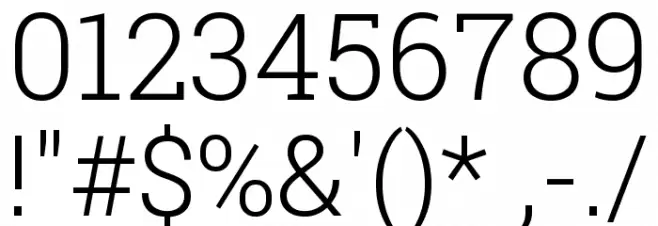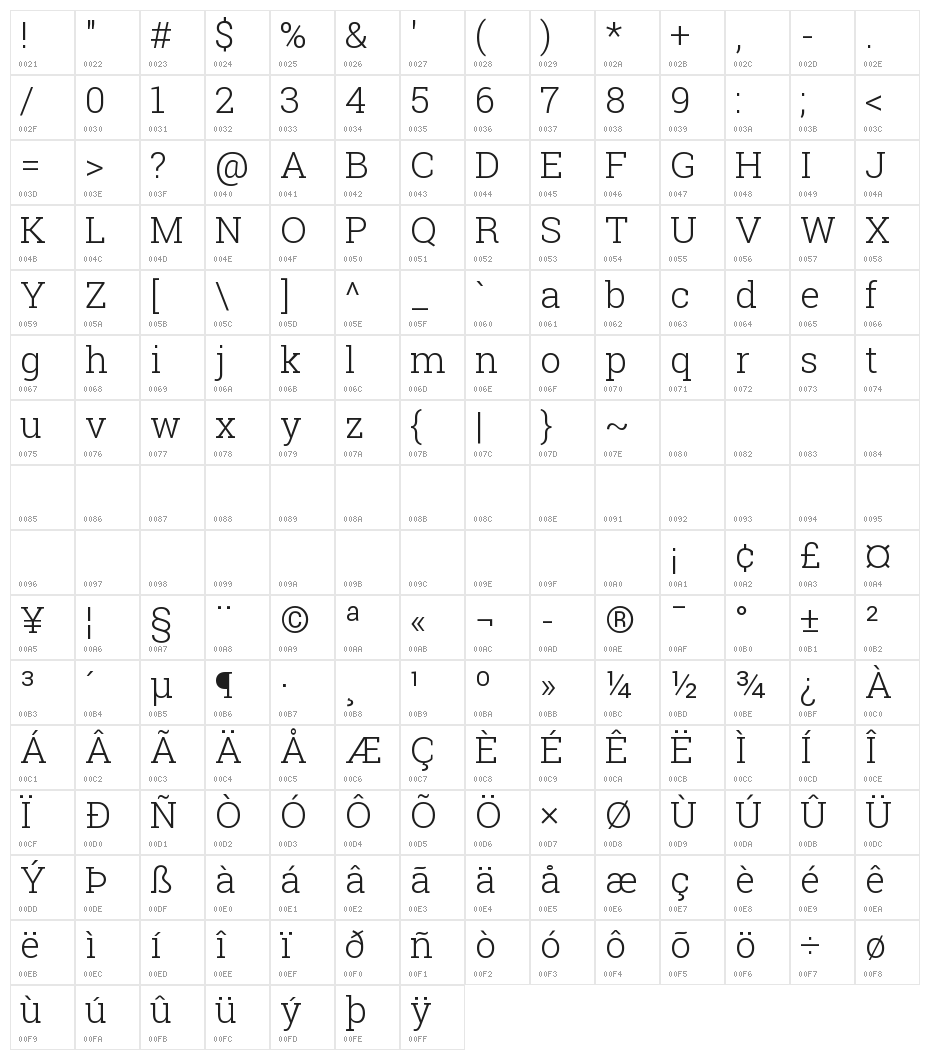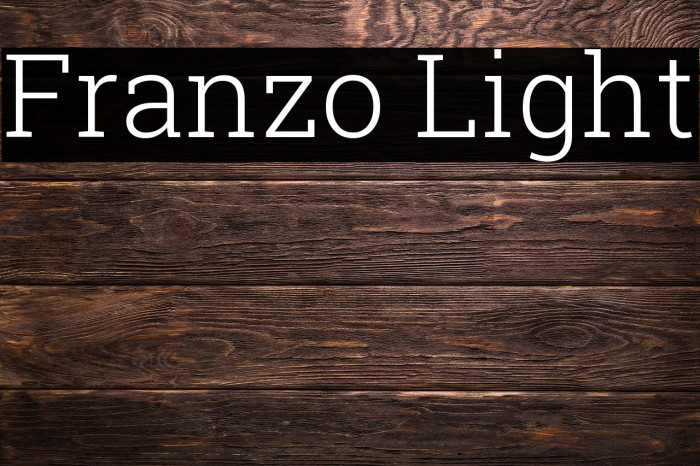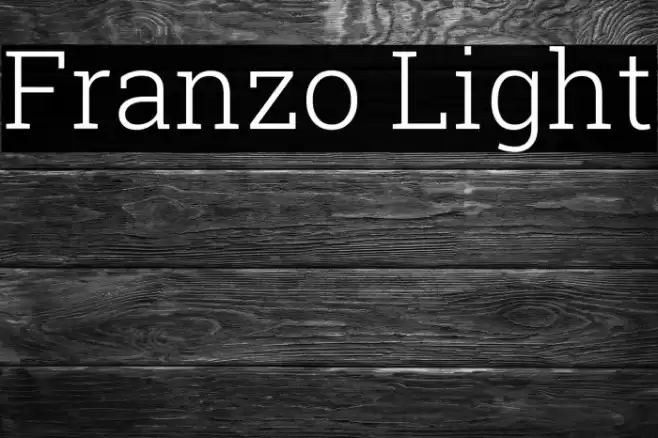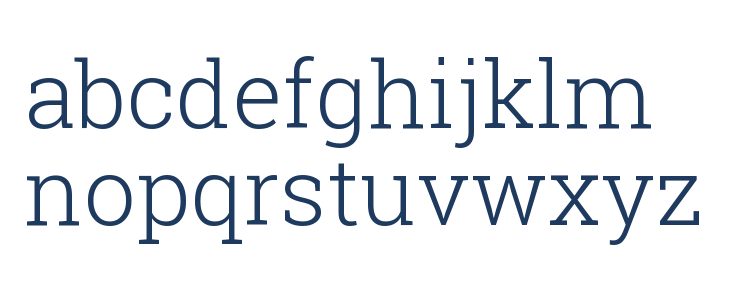
Franzo Light Font
Franzo Light Description
This font features a clean and modern design with a focus on readability and simplicity. The characters are evenly spaced with a consistent stroke width, giving it a balanced and harmonious appearance. The uppercase letters are bold and assertive, while the lowercase letters maintain a friendly and approachable feel. The numerals are clear and distinct, making them easy to read. The special characters are well-integrated, maintaining the overall aesthetic of the font. This font is versatile and can be used in various design contexts, from digital to print media.
| Use Case | Body text, Headlines, Logos |
| Proposed Projects | Ideal for web design, branding, corporate materials, and editorial design. |